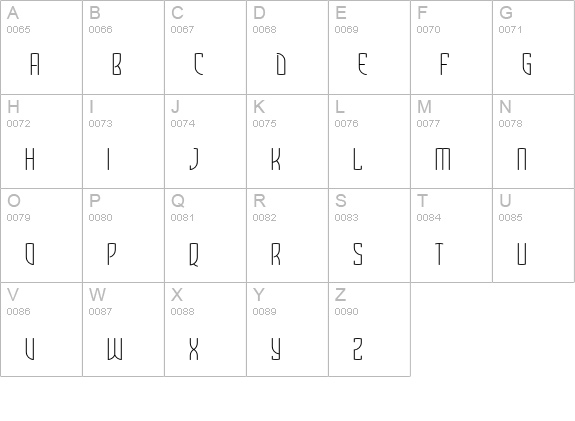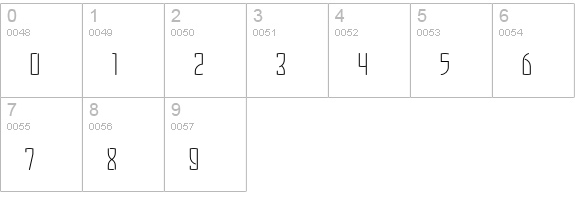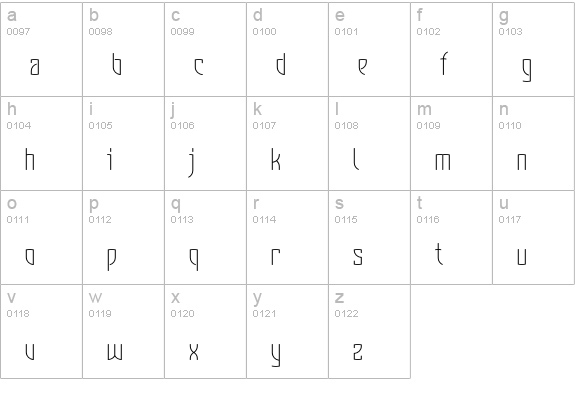
Komunique-Light is a refined, elegant variant in the Komunique typeface family \xE2\x80\x94 well suited to elegant body text, refined sub-headings, and luxury branding.
Komunique-Light font is a sleek and modern typeface that exudes elegance and sophistication. With its clean lines and stylish curves, this font is perfect for adding a touch of refinement to any design project. The light weight of the font gives it a delicate and airy feel, making it ideal for use in a variety of applications. What sets Komunique-Light font apart is not only its aesthetic appeal but also the fact that it is available for free download at FontsMarket.com. This means that you can easily access this high-quality font without having to worry about any additional costs. Whether you are working on a personal project or a professional design, Komunique-Light font is a versatile choice that will elevate your work to the next level. So why wait? Download Komunique-Light font today and discover the endless possibilities it offers for your creative endeavors. With its timeless design and effortless charm, this font is sure to become a favorite in your collection.